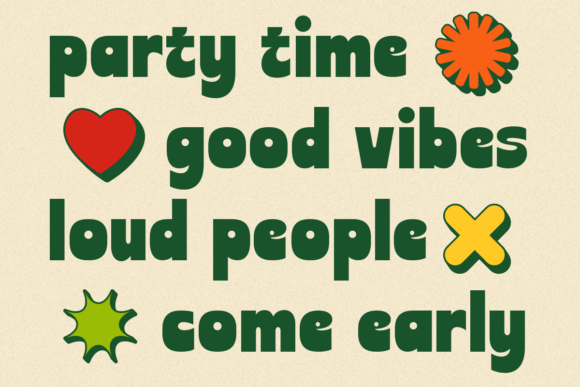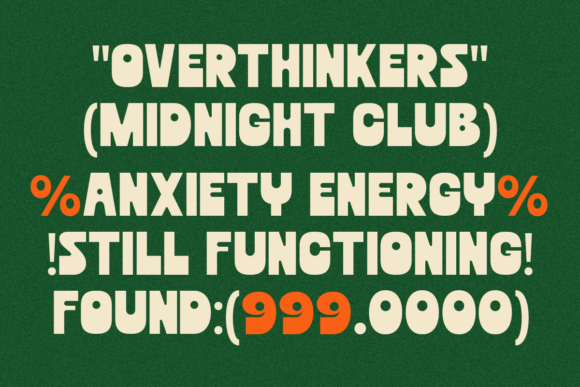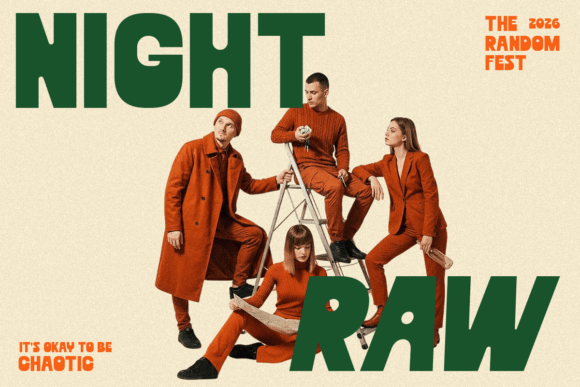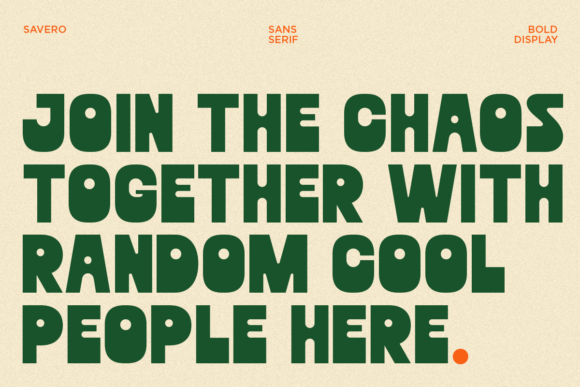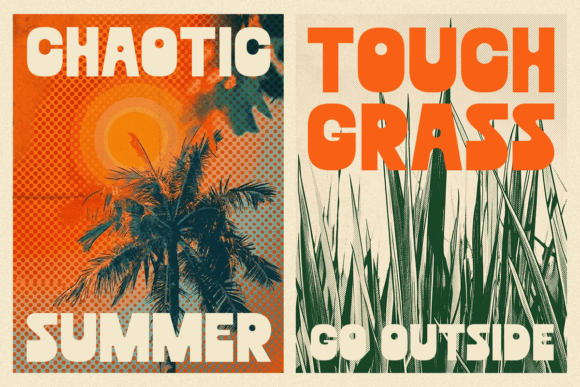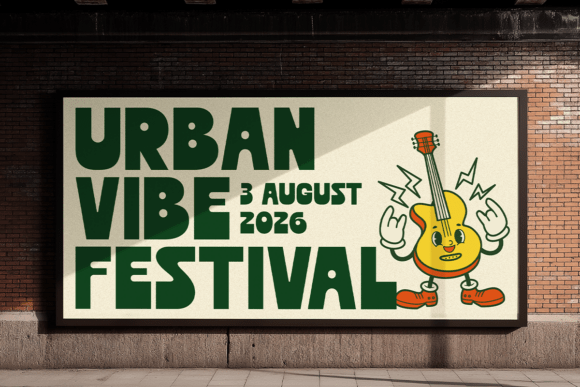
Introduction to Savero Font Font
Fonts play a crucial role in design, and the Savero Font font is a typeface that brings both character and versatility to any project. Whether you’re working on a branding project, a website, or a print design, the Savero Font font offers a unique style that can elevate your work.
Savero is a bold display typeface that brings a playful and energetic personality into modern typography.
Designed for creative versatility, Savero shines in branding, packaging, posters, and lifestyle visuals Its bold structure ensures excellent readability at large sizes, making it ideal for headlines, logos, and promotional graphics.
The Savero Font font is more than just a typeface – it’s a design tool that helps you communicate your message with style and clarity. Its unique character set and versatile design make it suitable for a wide range of applications, from elegant invitations to bold headlines.
With its carefully crafted letterforms and balanced proportions, the Savero Font font ensures readability and visual appeal across all mediums.
The Savero Font font stands out with its unique design, exceptional readability, and versatility across various design applications.